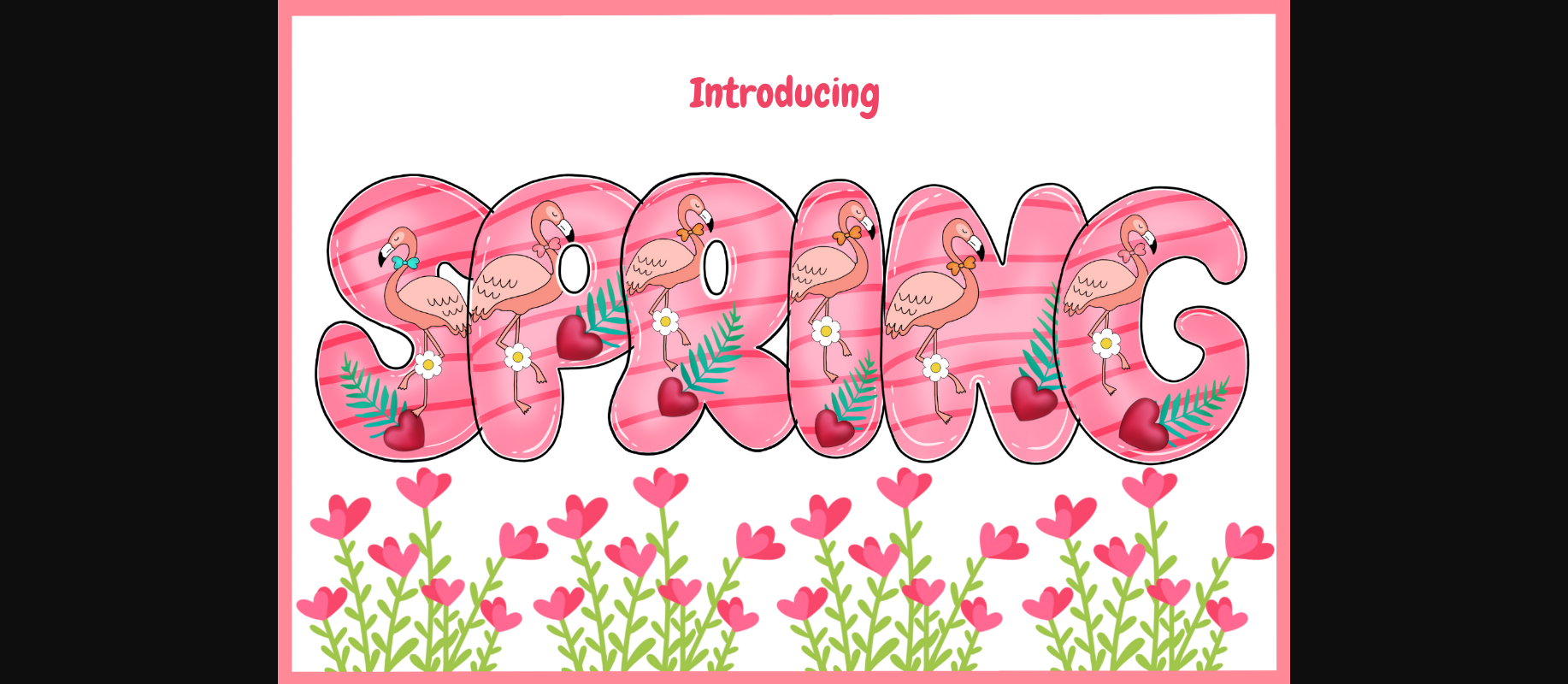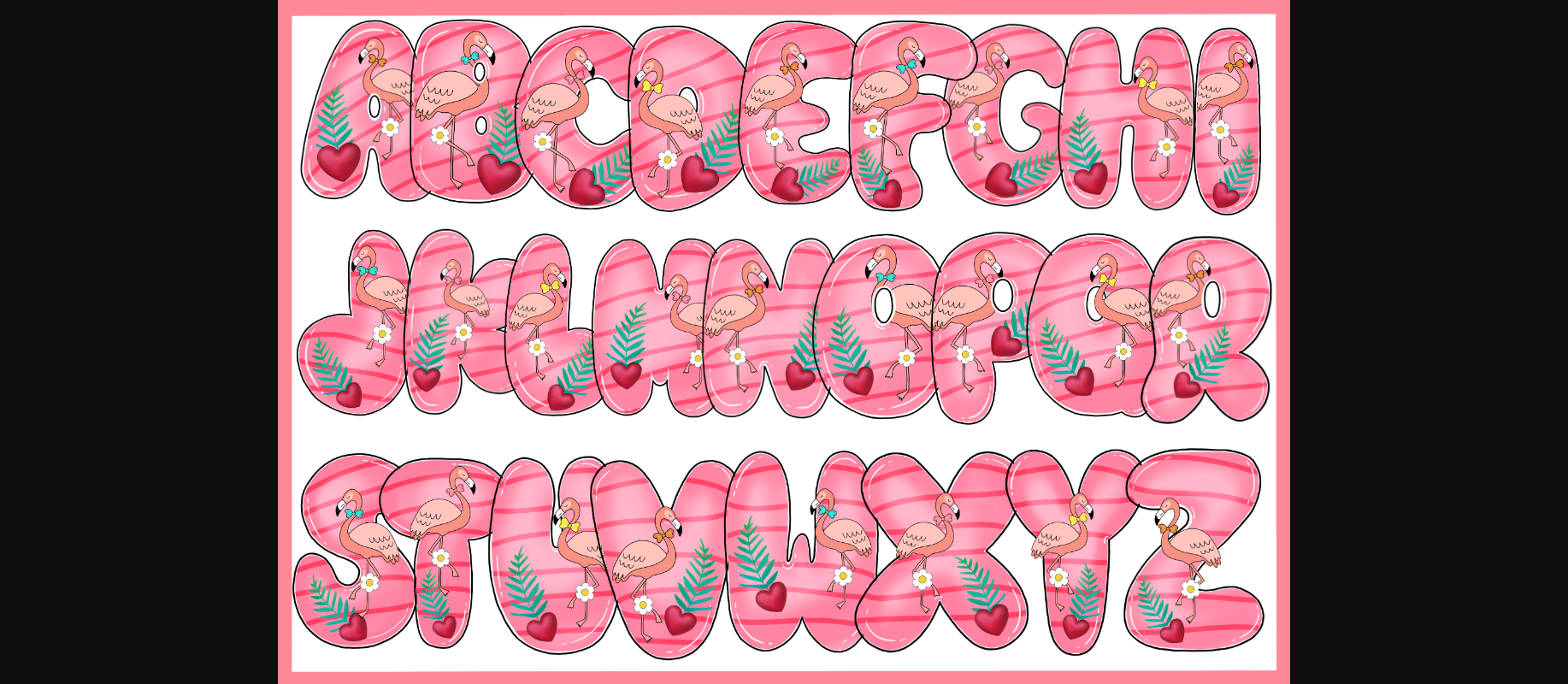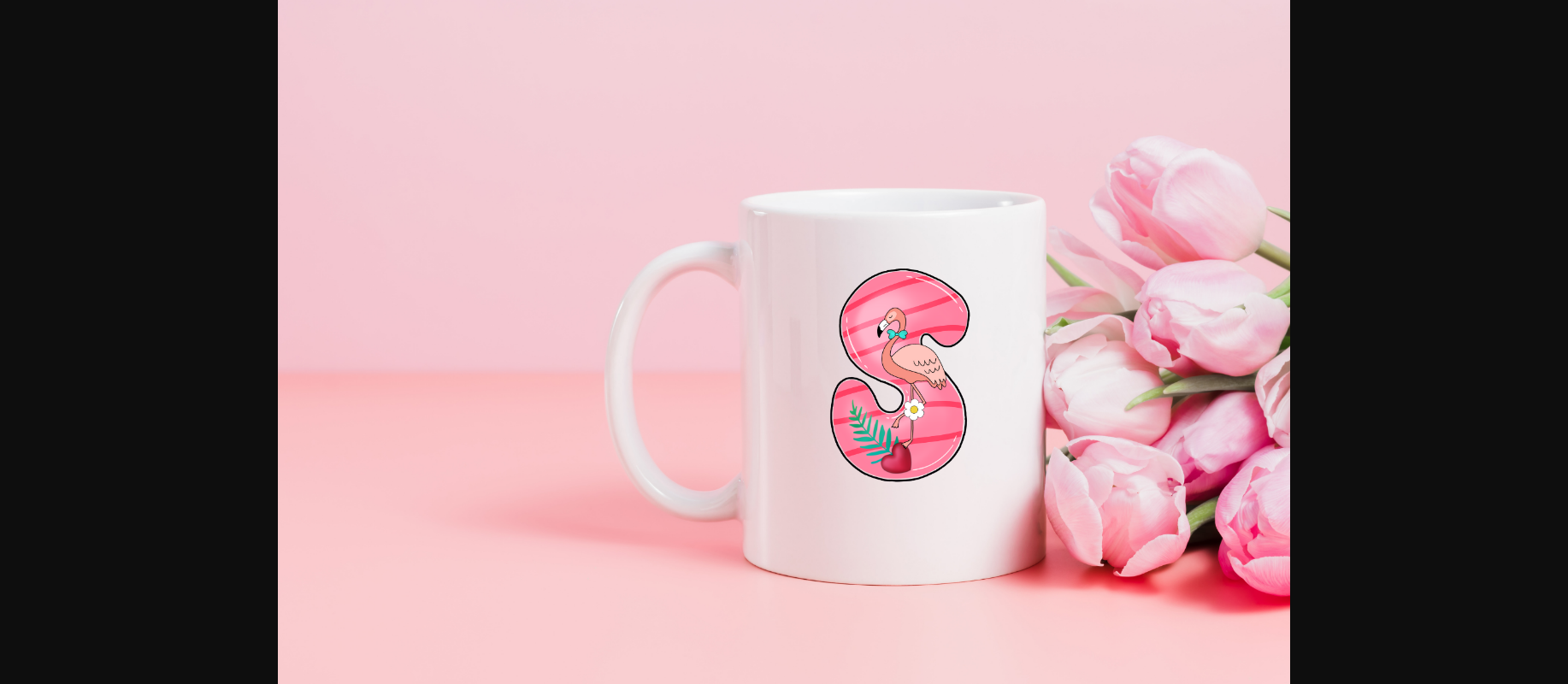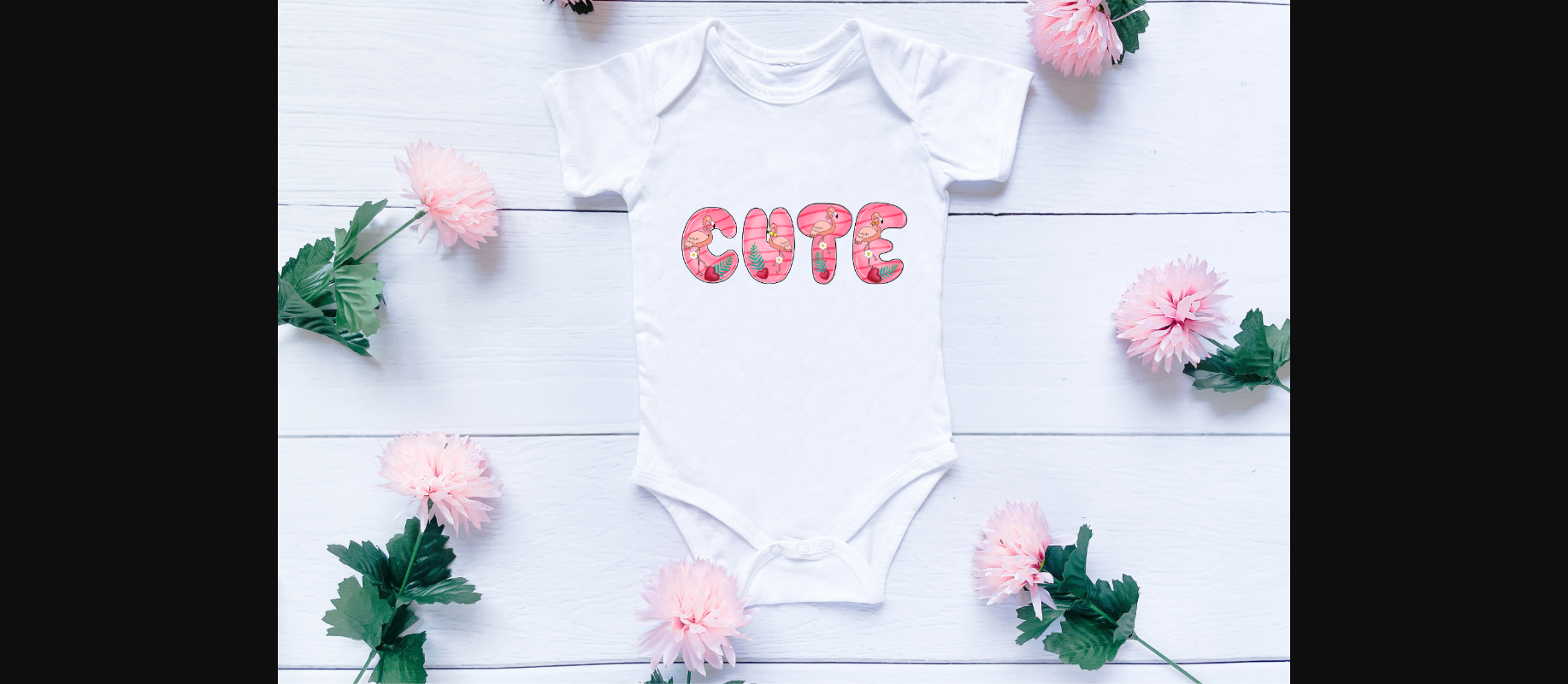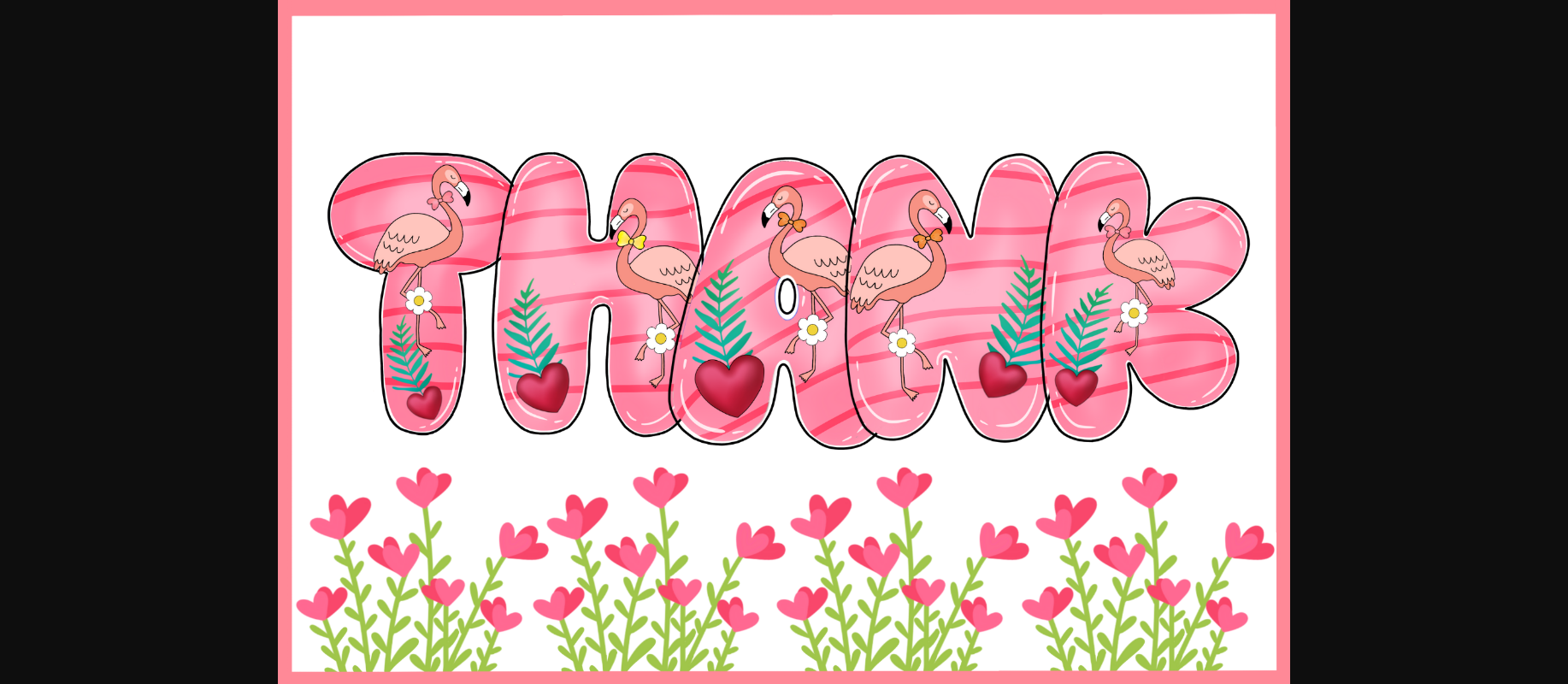
HomeDecorative FontsSpring Font Decorative Fonts Spring Font FacebookTwitterPinterestWhatsApp 1 of 8 ... Spring Font Poster 2... Spring Font Poster 3... Spring Font Poster 4... Spring Font Poster 5... Spring Font Poster 6... Spring Font Poster 7... Spring Font Poster 8... About Spring Font Spring is a cute and girly decorative font. Just in time for this season, this font is a great addition to your design assets collection! DOWNLOAD NOW People also explored Asmara Font The Paradise Font Holiday Font Ghaitsa Font Red Wine Bottle Mockup Breston Monoletter Font Wonder Justice Cajito Children Font 170 0 TagsSpringSpring Font Previous articleAlways Loved FontNext articleKartini Split Monogram Font LEAVE A REPLY Cancel reply Comment: Please enter your comment! Name:* Please enter your name here Email:* You have entered an incorrect email address! Please enter your email address here Website: Save my name, email, and website in this browser for the next time I comment. Personal Use Free Free Personal Use Free Read more about this font Unlock Endless Creativity with the FREE September Clipart Huge Bundle (Valued at $700!) Personal Use Free Read more about this font Baby Mollusca Personal Use Free Read more about this font Hanberra Personal Use Free Read more about this font BLOG To increase your work productivity, choose the most readable fonts. In today's fast-paced work environment, where digital communication and information consumption are integral to our daily routines, the choice of fonts can significantly impact... Where to Buy American Fonts Online in 2024 Using Fonts in Digital Marketing: Tips to Strengthen Your Brand Identity Top 7 Google Fonts Alternatives for Faster and Privacy-Friendly Web Design (2025)